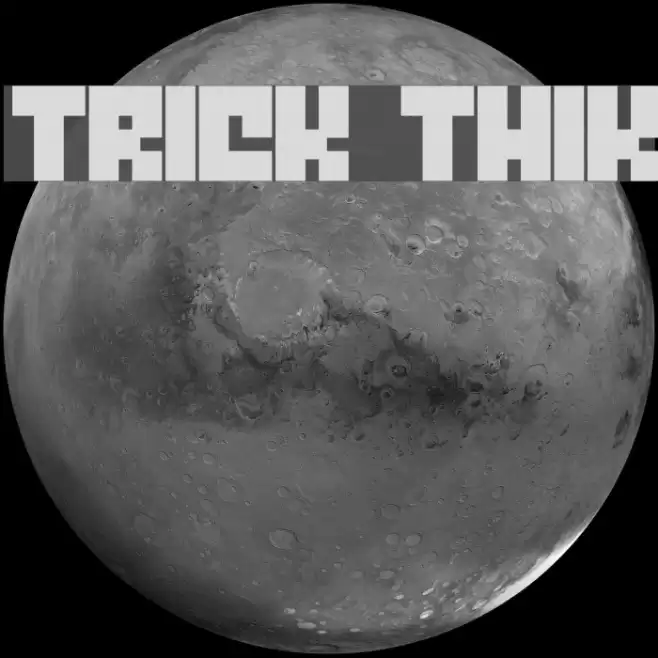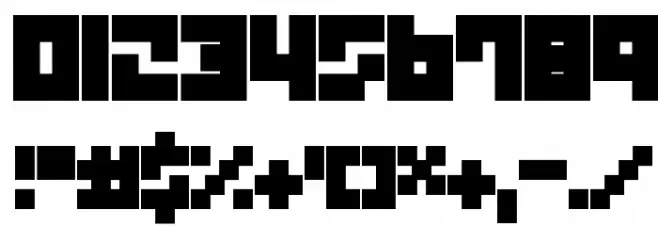
Trick Thik Font
Trick Thik Description
This font features a bold, geometric design with a blocky, pixelated appearance. Each character is constructed with sharp angles and straight lines, creating a uniform and cohesive look. The uppercase and lowercase letters maintain a consistent height, contributing to its monospaced feel. The numbers and special characters follow the same design principles, ensuring a seamless integration across all elements. Its distinct style is reminiscent of retro digital displays, making it ideal for projects that require a modern yet nostalgic touch.
A bold, geometric font with a pixelated, retro digital style from Uncategorized fonts.